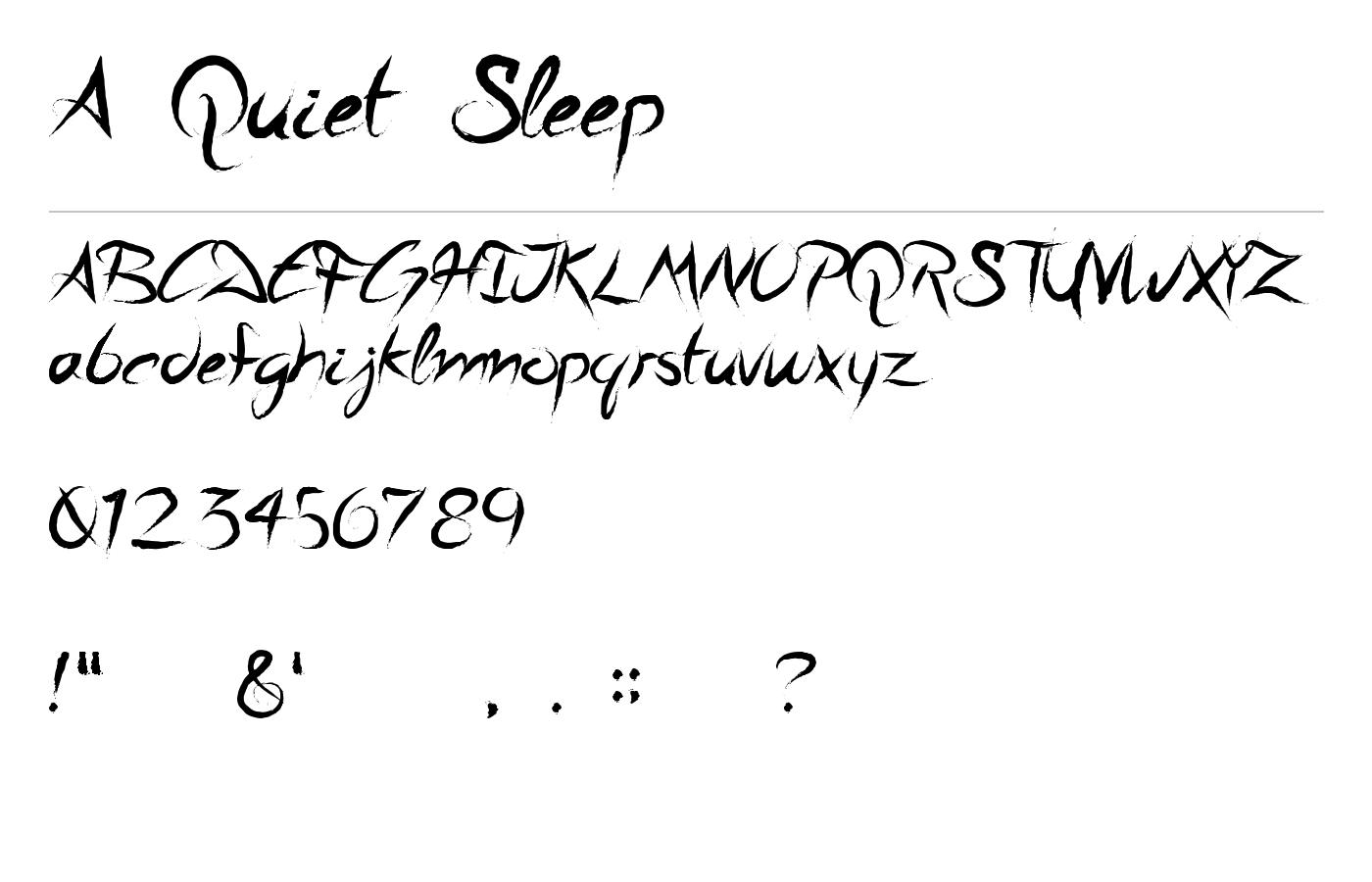
A Quiet Sleep is an expressive, handwritten script font with a textured, brushstroke style that gives it a dynamic and slightly edgy character. Its irregular lines and sharp, flowing strokes create a sense of movement and artistic flair, making it ideal for creative projects, personal branding, or any design seeking an organic, emotional touch. This font works well in headlines, logos, or invitations where a unique, handcrafted feel is desired.
A Quiet Sleep Font
About A Quiet Sleep Font
| Font family | A Quiet Sleep Font |
| Designer | John Gauthier |